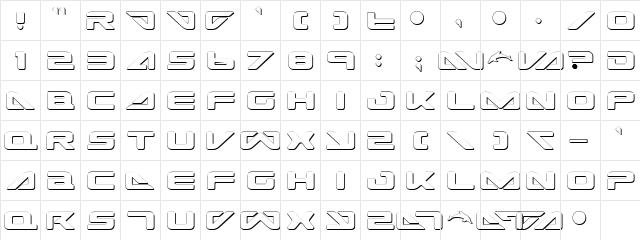
Sea Dog 2001 Shadow Shadow
| Designer | Dan Zadorozny |
Design Context for Sea Dog 2001 Shadow Typeface
Sea Dog 2001 Shadow brings ornamental detail and strong personality to headlines and identities, where visual impact matters more than quiet functionality.
Font Pairing: Pair with a clean neutral sans-serif for body copy to let Sea Dog 2001 Shadow's character lead without overwhelming the composition.
Pro Tip: Treat Sea Dog 2001 Shadow as the centrepiece of your typographic hierarchy. One strong heading set in a decorative face can carry an entire layout.